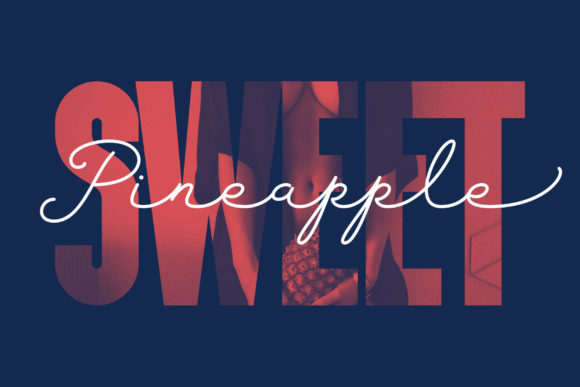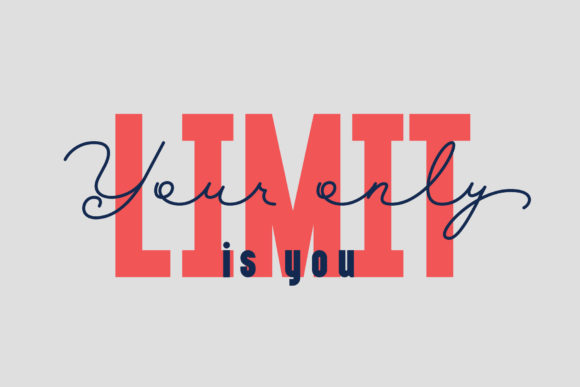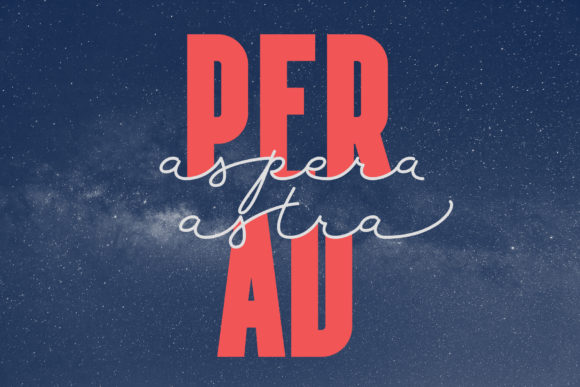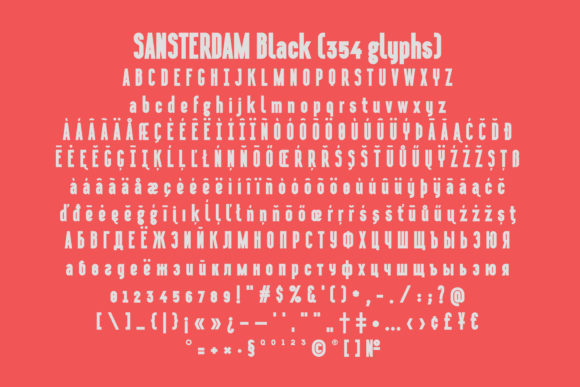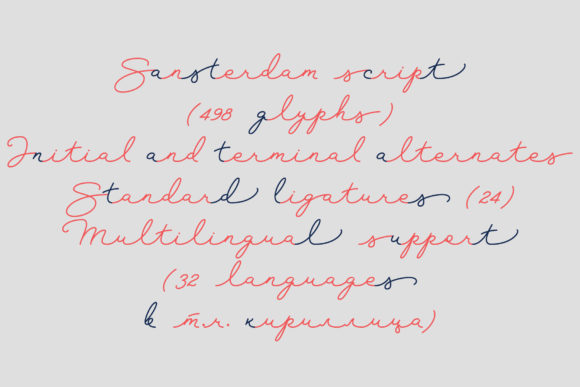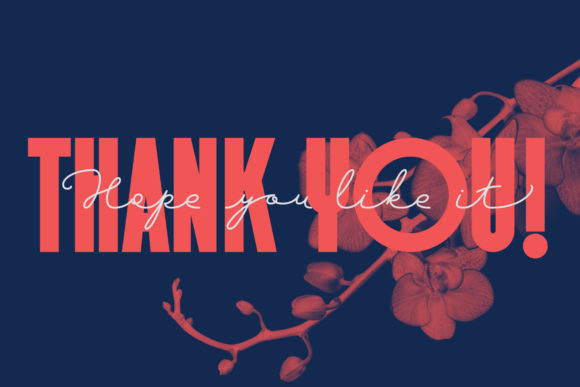
HomeScript FontsSansterdam Font Script Fonts Sansterdam Font FacebookXPinterestWhatsApp Sansterdam Font Poster 2 Sansterdam Font Poster 3 Sansterdam Font Poster 4 Sansterdam Font Poster 5 Sansterdam Font Poster 6 Sansterdam Font Poster 7 About Sansterdam Font Sansterdam is a modern geometric script font with a powerful vibe. Get inspired by its urban charm. DOWNLOAD NOW People also explored Madegola Script Font Mariken Lawless Years Regular Cromentone Font Maesiez Font Friendship Font Poespa Indah Font Retroman Font Sunday Vintage Font 319 0 TagsSansterdam Font Previous articleCarllitos FontNext articleTuckers Font LEAVE A REPLY Cancel reply Comment: Please enter your comment! Name:* Please enter your name here Email:* You have entered an incorrect email address! Please enter your email address here Website: Save my name, email, and website in this browser for the next time I comment. Personal Use Free Klotee Personal Use Free Read more about this font Cline Personal Use Free Read more about this font Jabirah Personal Use Free Read more about this font Rakesly Personal Use Free Read more about this font BLOG Best Fonts for YouTube Videos: Make Your Thumbnails Stand Out Best Fonts for YouTube Videos: Make Your Thumbnails Stand Out Choosing the right font can make a massive difference in how your YouTube videos perform.... Fonts That Capture the Spirit of New York City Elegant Wedding Invitation Fonts – Handwritten & Script Fonts Using Fonts in Digital Marketing: Tips to Strengthen Your Brand Identity